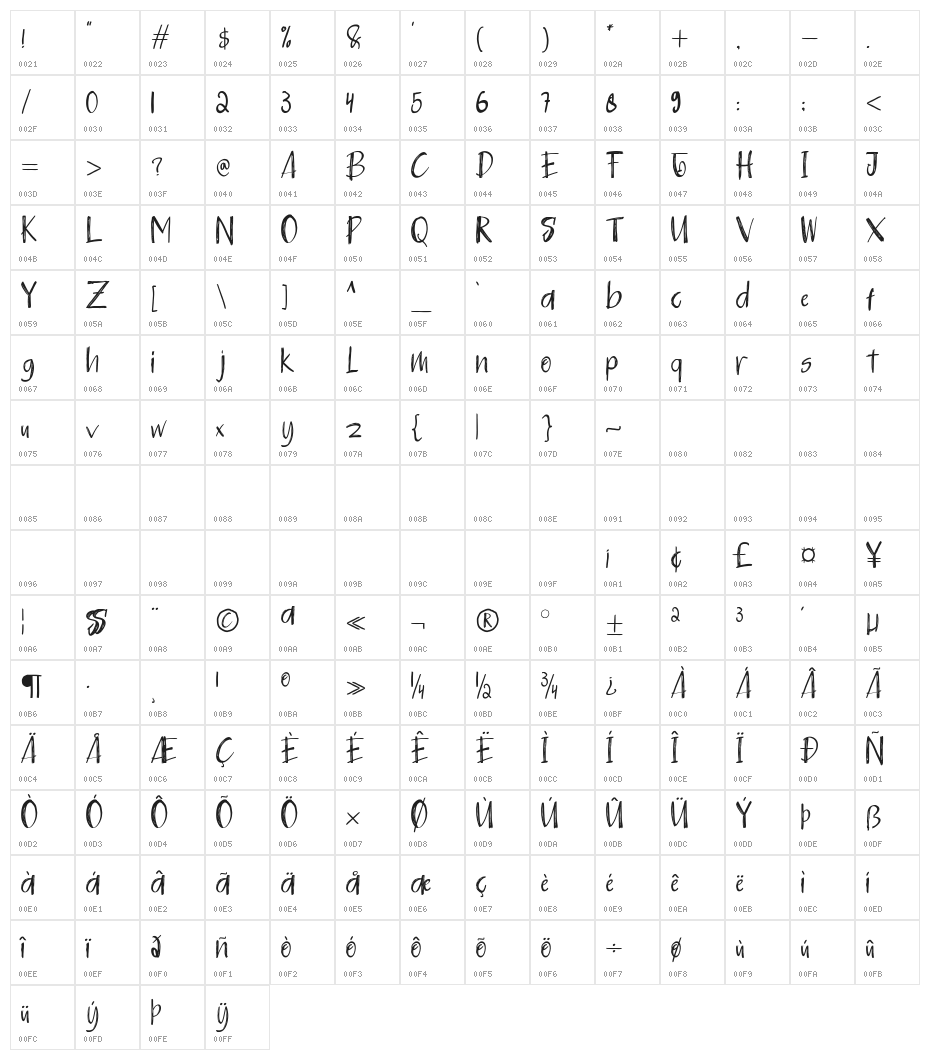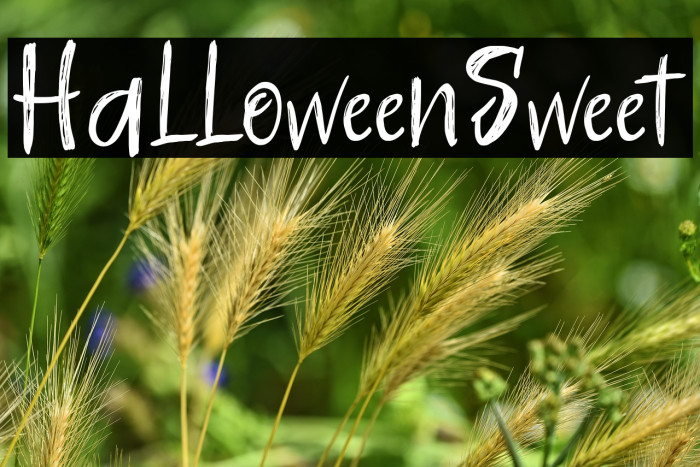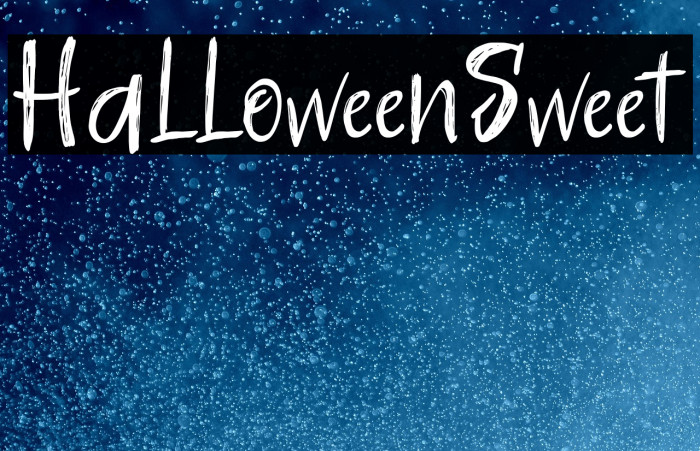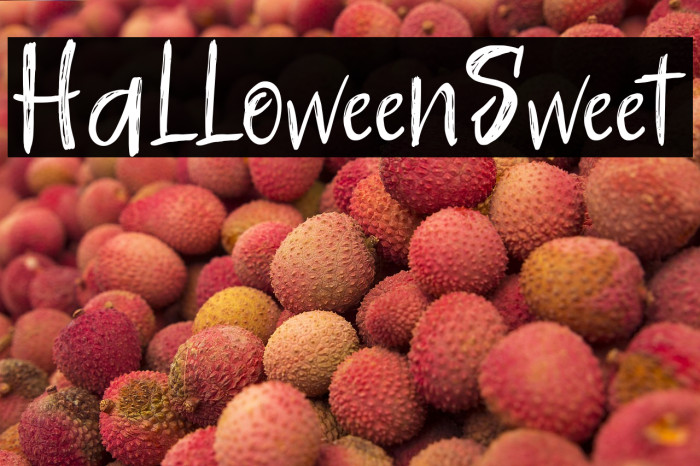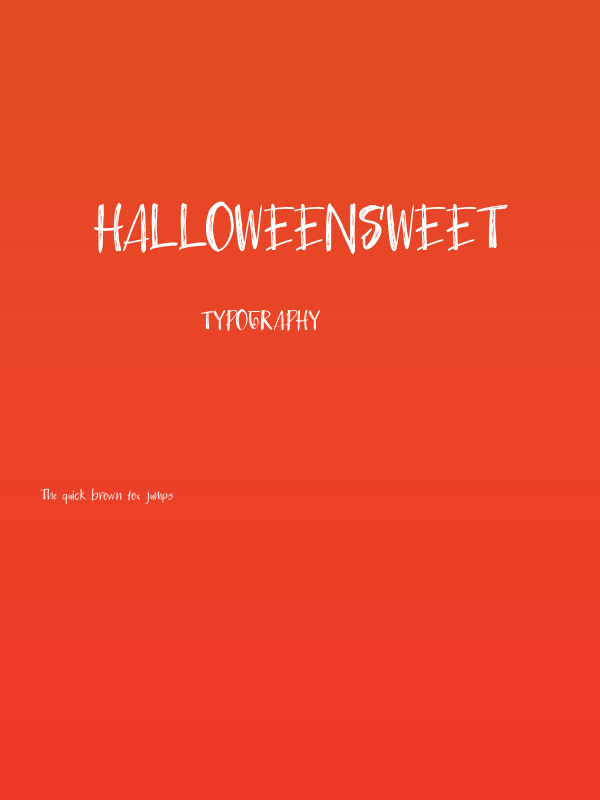
HalloweenSweet Font
HalloweenSweet Description
This font exudes a playful and spooky charm, perfect for Halloween-themed designs. The letters have an uneven, hand-drawn appearance with a slightly jagged edge, giving them a whimsical yet eerie feel. The uppercase letters are tall and narrow, while the lowercase letters maintain a consistent style with a slightly more relaxed form. Numbers and special characters follow the same quirky design, making them ideal for creative projects. The overall look is casual and artistic, capturing the essence of a fun and spooky atmosphere.
| Proposed Projects | Ideal for Halloween invitations, themed posters, children's book covers, and festive decorations. |